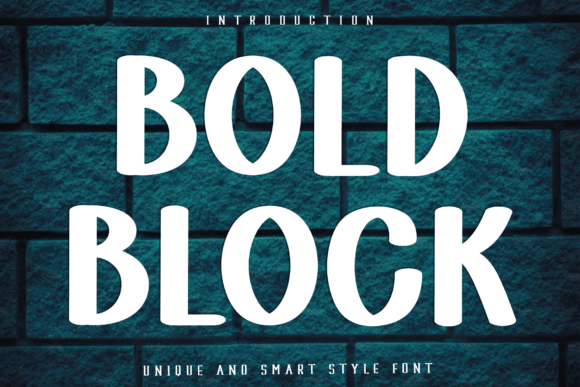
The Magic of Bold Block Font: Elevate Your Holiday Designs
It’s that time of the year again – the holiday season is just around the corner, and with it comes the pressure to create stunning designs that capture the spirit of the festivities. I still remember the year I was tasked with designing a Christmas card for a client’s family gathering. I spent hours scouring the internet for the perfect font, only to end up with a bland, generic typeface that failed to convey the cheer and joy of the season. Fast forward to today, and I’m excited to share with you a game-changing font that will make your holiday designs shine: Bold Block Font.
A Festive and Merry Typeface
Bold Block Font is a festive and merry typeface that embodies the essence of the holiday season. With its decorative elements and whimsical flair, it adds a touch of enchantment to your designs. This font is perfect for greeting cards, gift tags, and holiday-themed projects, bringing a cheerful and nostalgic ambiance to your words.
What I Love About Bold Block Font
- ✨ PUA encoded for easy access to amazing glyphs and ligatures
- ✅ Decorative elements that add a touch of magic to your designs
- 🎉 Whimsical flair that’s perfect for holiday-themed projects
- 📚 Works beautifully with OpenType features, glyphs, and stylistic alternates
Honest Review: The Not-So-Perfect Font
While Bold Block Font is a stunning typeface, it’s not without its quirks. Here are a few things to keep in mind:
The Story Behind Bold Block Font
Bold Block Font was designed by a team of creative typographers who wanted to capture the magic of the holiday season in a single typeface. Inspired by vintage holiday cards and festive decorations, they crafted a font that’s both nostalgic and modern.
| What is Bold Block Font? | Bold Block Font is a festive and merry typeface that’s perfect for holiday-themed designs. |
| Is Bold Block Font PUA encoded? | Yes, Bold Block Font is PUA encoded, making it easy to access all glyphs and ligatures. |